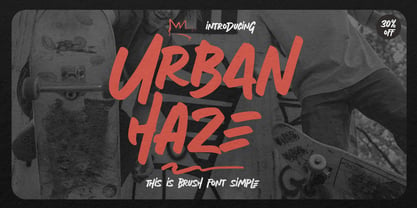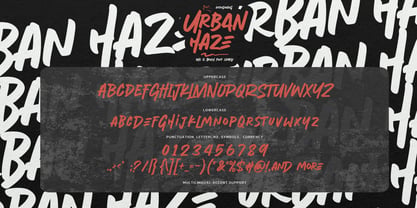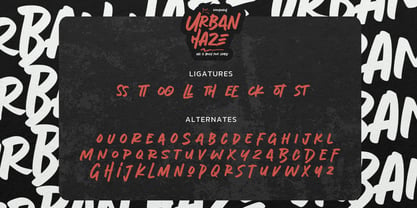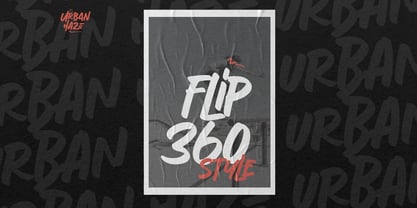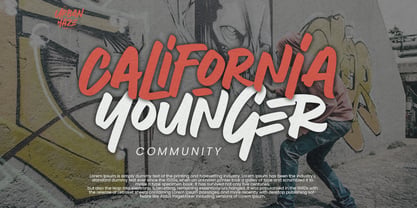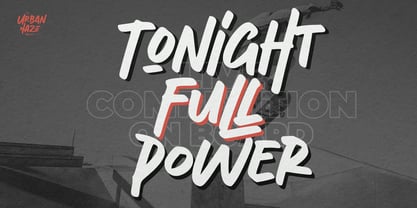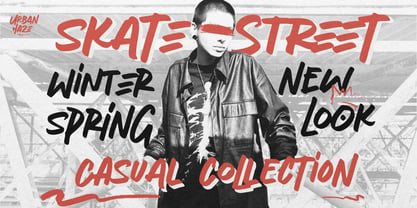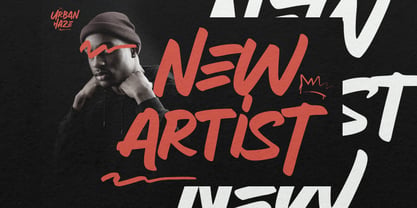
Urban Haze
by Gassstype
The Urban Haze Font Family was designed by Abdul Malik Wisnu and published by Gassstype. Urban Haze contains 1 styles. More about this family
Introducing our new product, Font Urban Haze. This is a brush font with a simple, textured, and natural handwritten style that exudes class. Urban Haze is perfect for your next creative project, including logos, printed quotes, invitations, cards, product packaging, headers, logotypes, letterheads, posters, and more. This font is ideal for watermarking photography and is perfect for logos and branding, advertisements, product designs, stationery, wedding designs, labels, product packaging, special events, or anything that requires a handwritten touch. It features charming, authentic, and relaxed characteristics, providing a more natural look to your text.
Designers: Abdul Malik Wisnu
Foundry: Gassstype